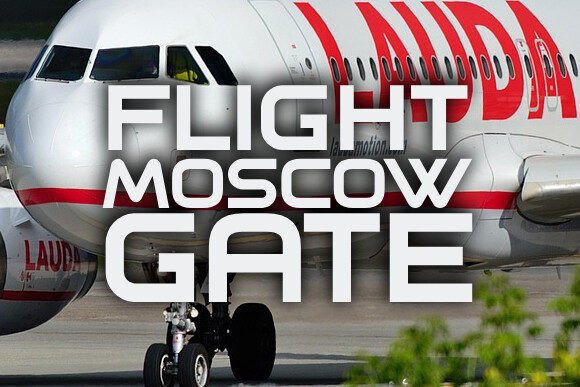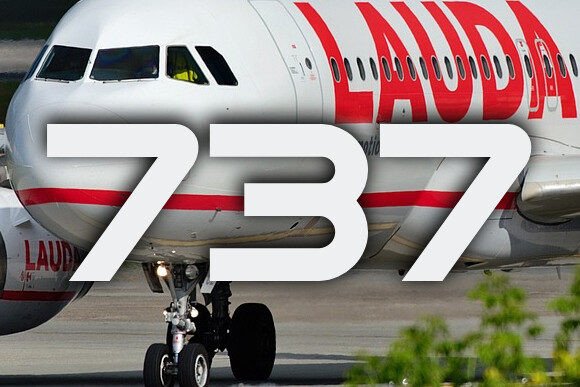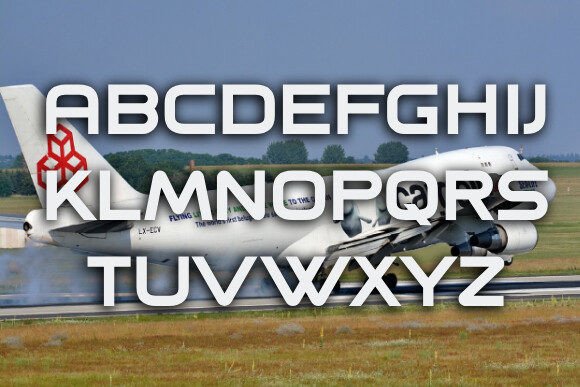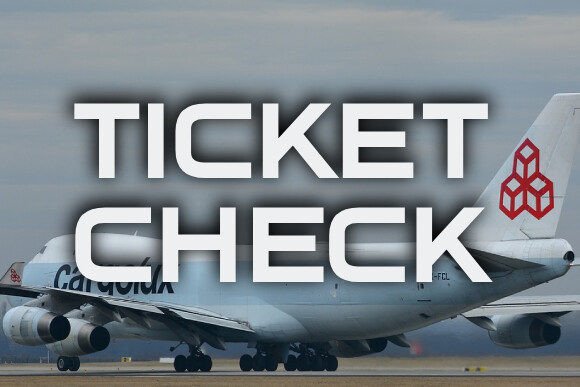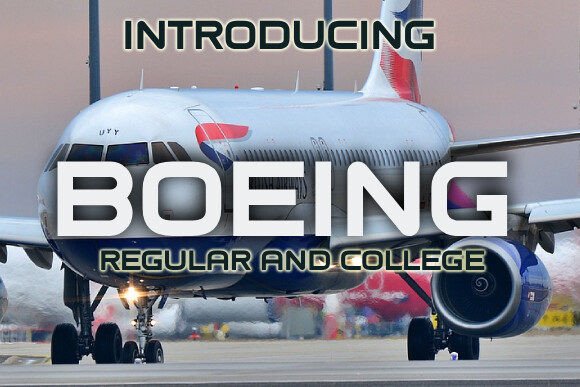
Introducing Boeing Font: The Ultimate Sans-Serif Font for Designers
Are you tired of using the same old fonts in your designs? Look no further! Boeing Font is a game-changing sans-serif font family that will elevate your designs to the next level. With its clean and modern aesthetic, Boeing Font is perfect for a wide range of applications, from posters and flyers to t-shirts and more.
What Makes Boeing Font So Awesome?
Boeing Font is a versatile and highly legible font that is designed to make your designs stand out. Its sans-serif style gives it a sleek and contemporary look that is perfect for designers and crafters who want to create modern and eye-catching designs. Here are just a few reasons why Boeing Font is an awesome addition to your font collection:
- Clean and Modern Aesthetic: Boeing Font has a clean and modern aesthetic that is perfect for designers who want to create sleek and sophisticated designs.
- Highly Legible: The font is highly legible, even at small sizes, making it perfect for use on a wide range of materials, from business cards to billboards.
- Versatile: Boeing Font is a versatile font that can be used for a wide range of applications, from posters and flyers to t-shirts and more.
Uses for Boeing Font
Boeing Font is a highly versatile font that can be used for a wide range of applications. Here are just a few ideas to get you started:
- Posters: Use Boeing Font to create eye-catching posters that will grab attention and communicate your message clearly.
- Flyers: Boeing Font is perfect for flyers, whether you’re promoting a event, product, or service.
- T-Shirts: Create custom t-shirts with Boeing Font for a unique and stylish look.
- Business Cards: Use Boeing Font on your business cards to create a professional and modern look.
- Signage: Boeing Font is perfect for signage, whether you’re creating a sign for a storefront, event, or exhibition.
Why Designers and Crafters Love Boeing Font
Designers and crafters love Boeing Font for a variety of reasons. Here are just a few:
- Easy to Read: Boeing Font is highly legible, making it easy for readers to quickly and easily understand your message.
- Customizable: Boeing Font is highly customizable, allowing you to adjust the font to fit your specific design needs.
- Unique Look: Boeing Font has a unique look that sets it apart from other fonts, making it perfect for designers who want to create something truly special.
How to Use Boeing Font in Your Designs
Using Boeing Font in your designs is easy! Here are a few tips to get you started:
- Choose the Right Size: Choose a font size that is large enough to be easily readable, but not so large that it overwhelms your design.
- Experiment with Colors: Boeing Font looks great in a variety of colors, so don’t be afraid to experiment and find the perfect color for your design.
- Pair with Other Fonts: Boeing Font pairs well with a variety of other fonts, so consider pairing it with a serif font for a unique look.
Boeing Font is an awesome sans-serif font family that is perfect for designers and crafters who want to create modern and eye-catching designs. With its clean and modern aesthetic, highly legible style, and versatility, Boeing Font is a great addition to any font collection. Whether you’re creating posters, flyers, t-shirts, or more, Boeing Font is sure to elevate your designs to the next level.